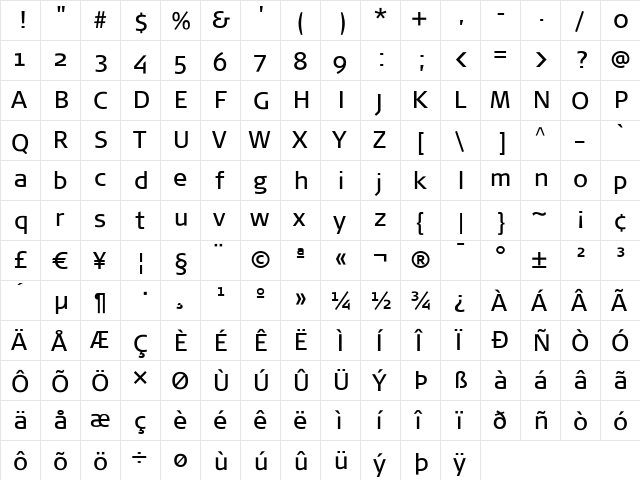
SignaNormal-Book Regular
Design Context for SignaNormal-Book Typeface
SignaNormal-Book is a composed and adaptable typeface that performs quietly and consistently across a wide range of design contexts.